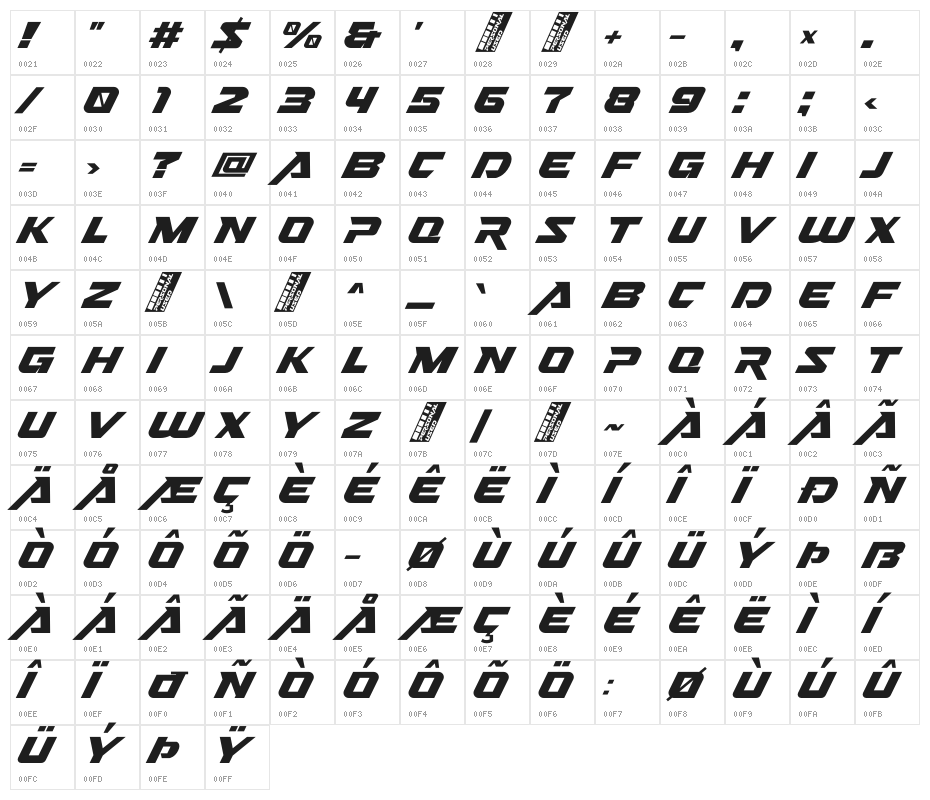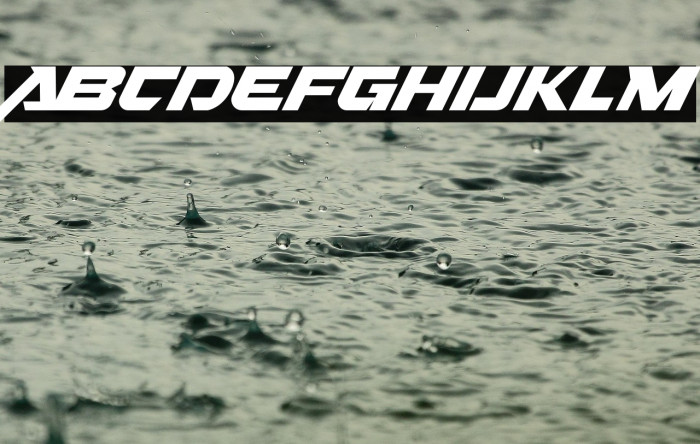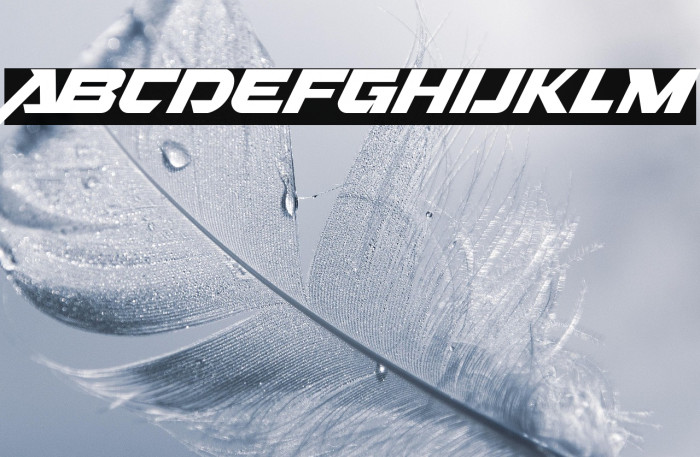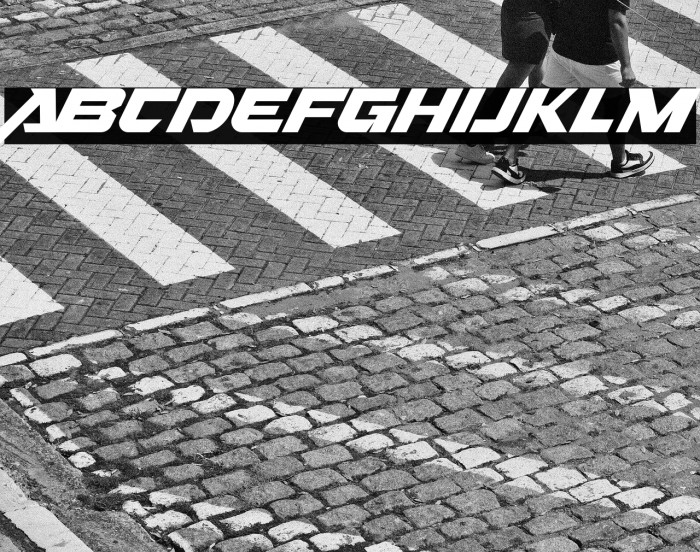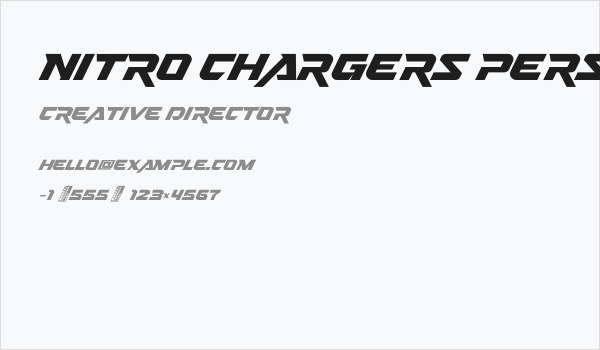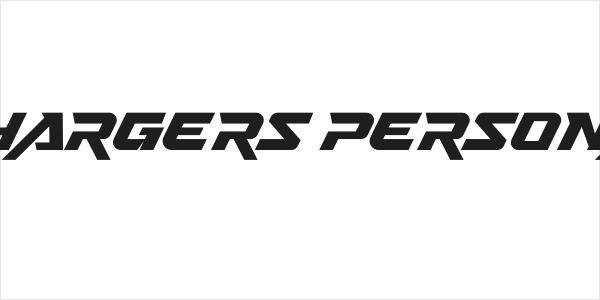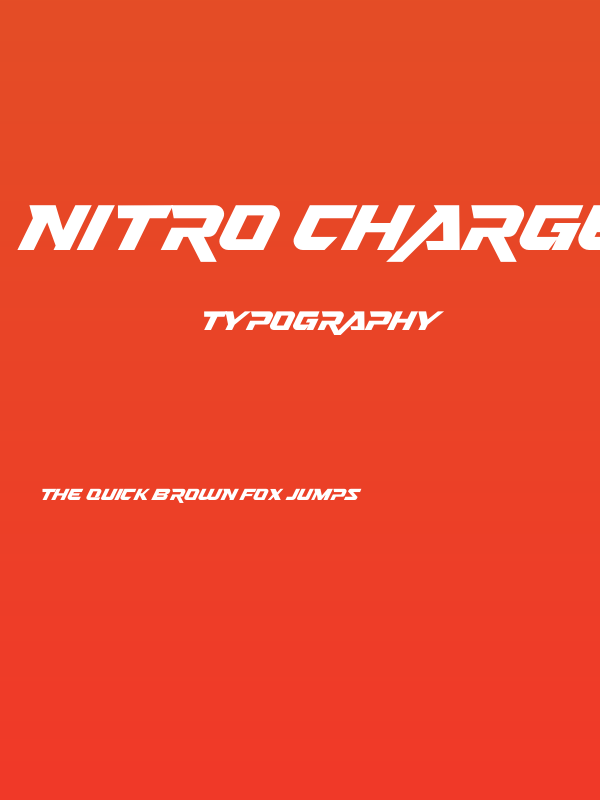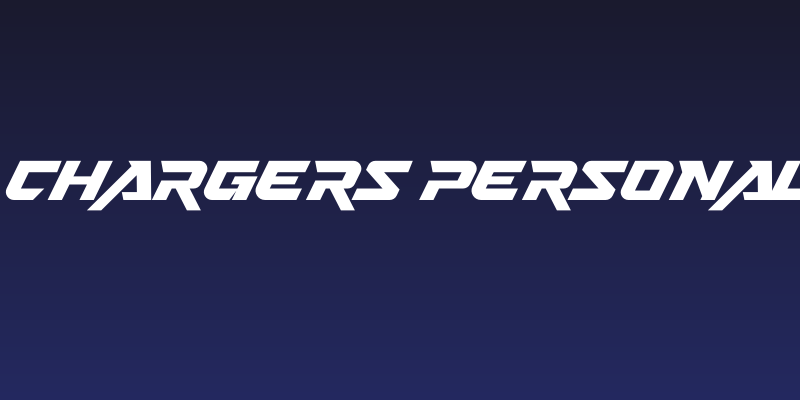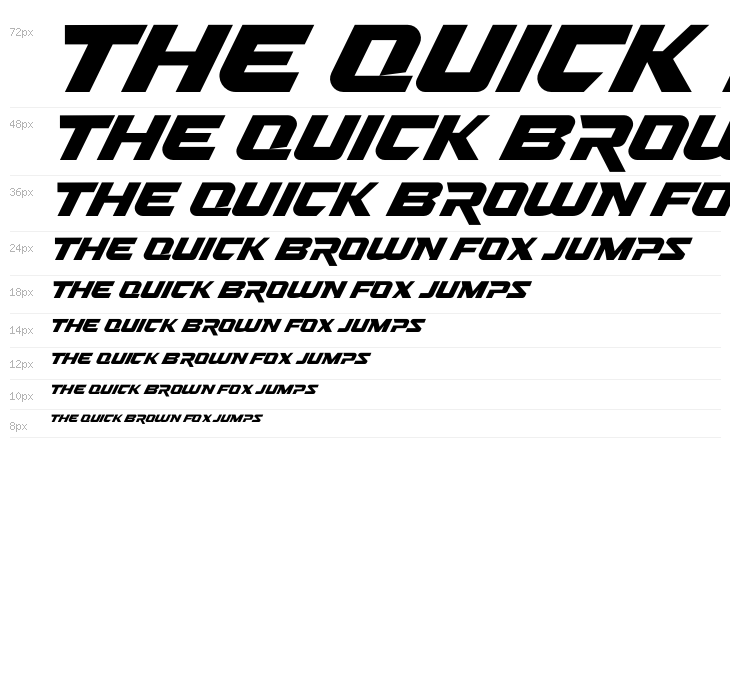
Nitro Chargers Personal Used Font
Nitro Chargers Personal Used Description
A bold, italicized, modern sans-serif font with a dynamic and sporty appearance, featuring angular cuts and a forward-leaning stance.
| Overall Style | Modern, Sporty |
| Use Case | Logos, Headlines |
| Proposed Projects | Sports branding, automotive logos, dynamic posters. |